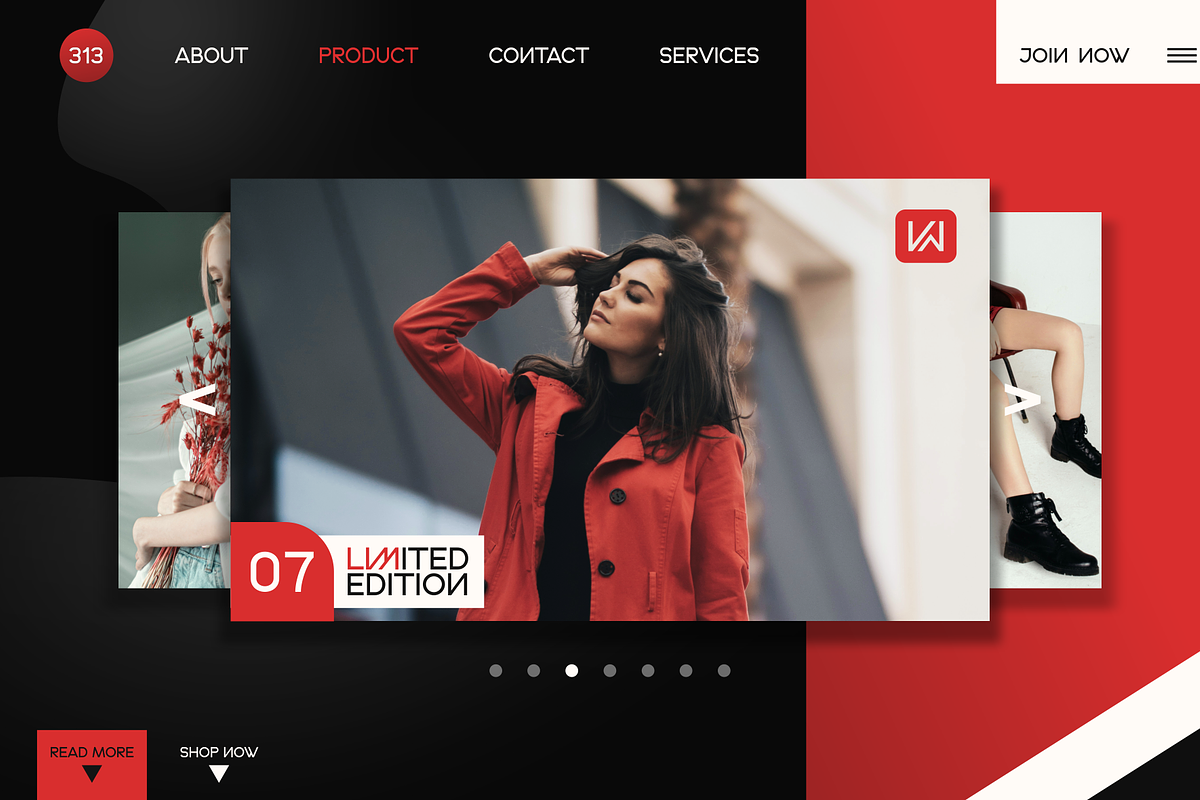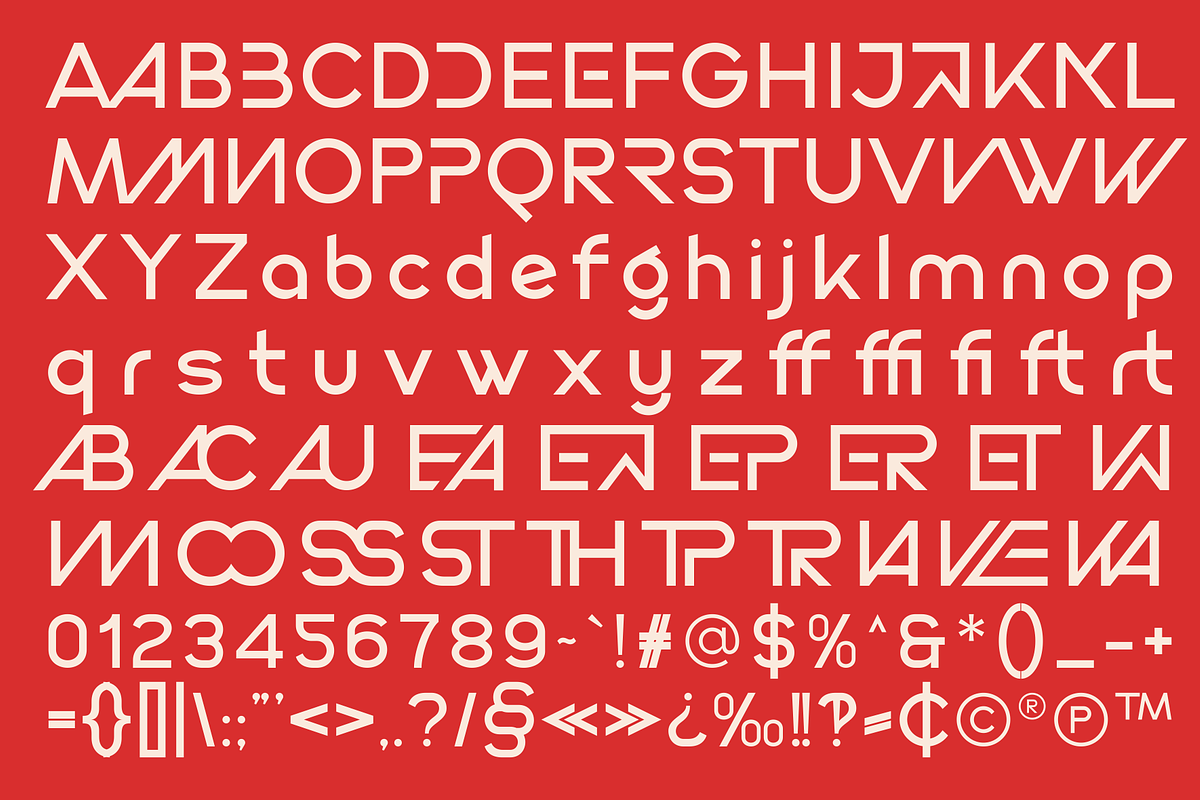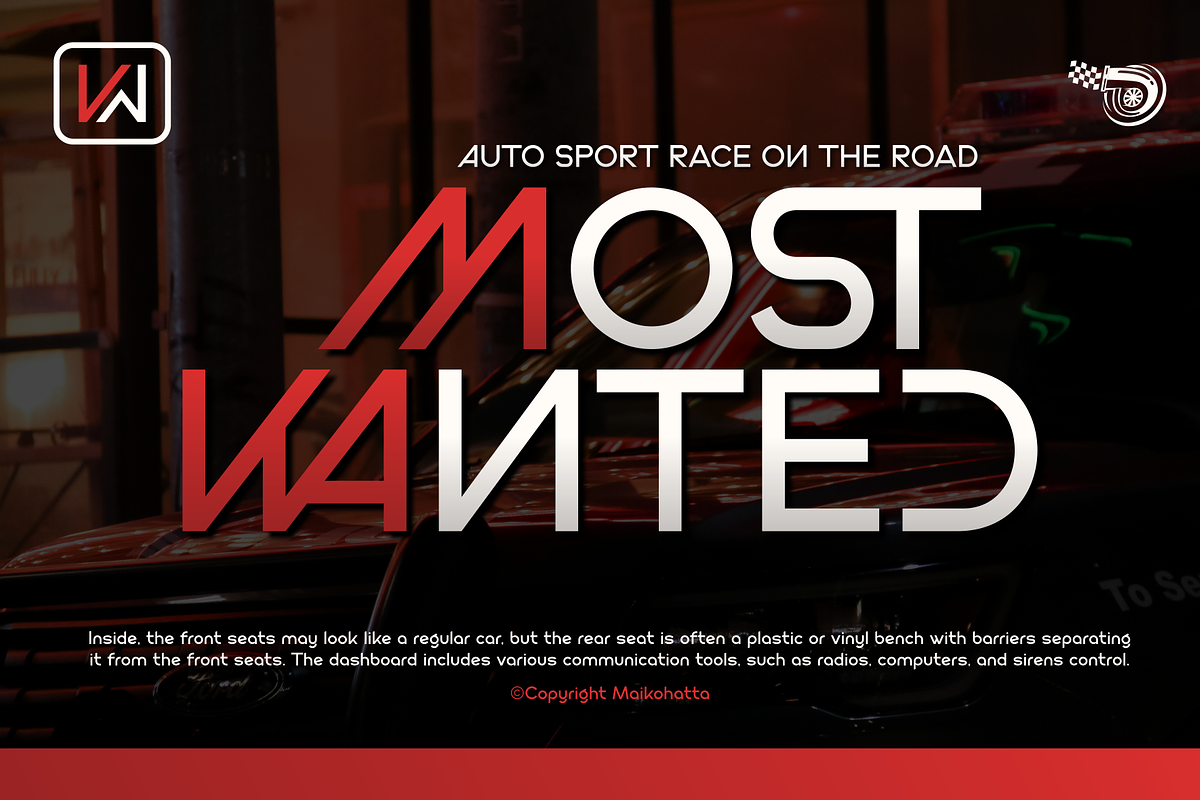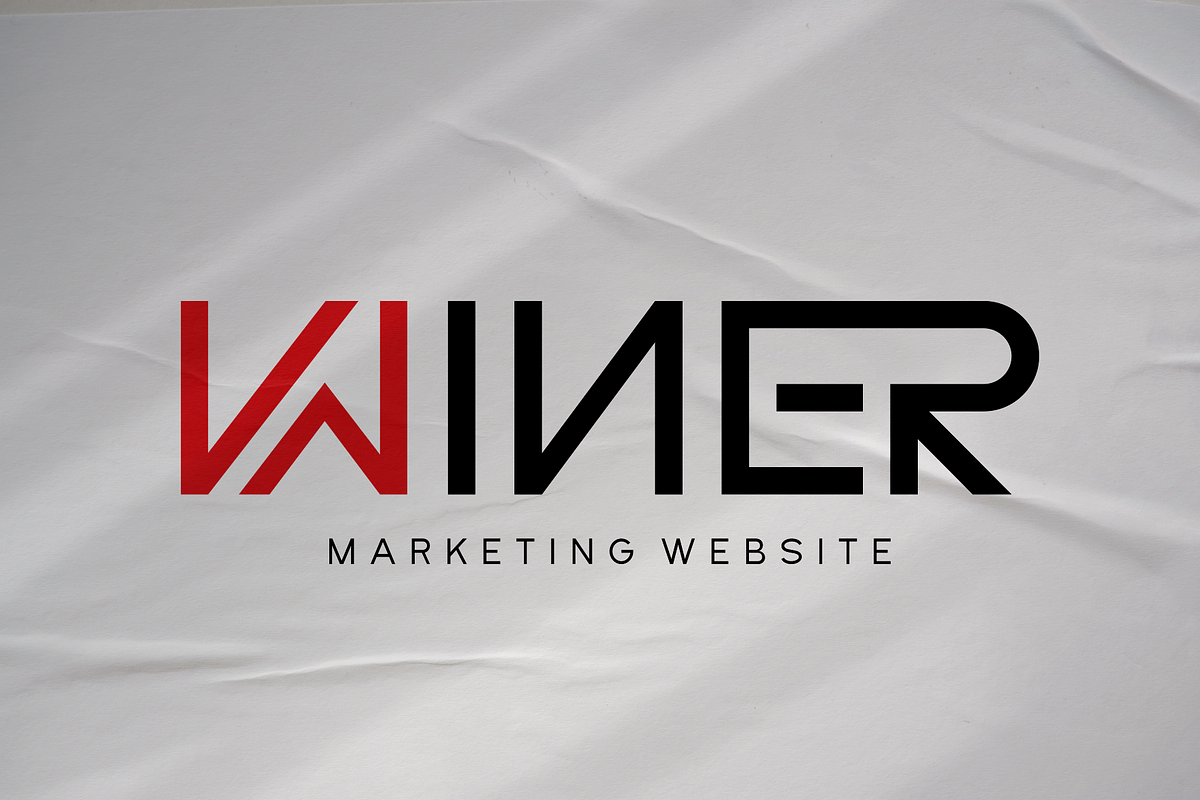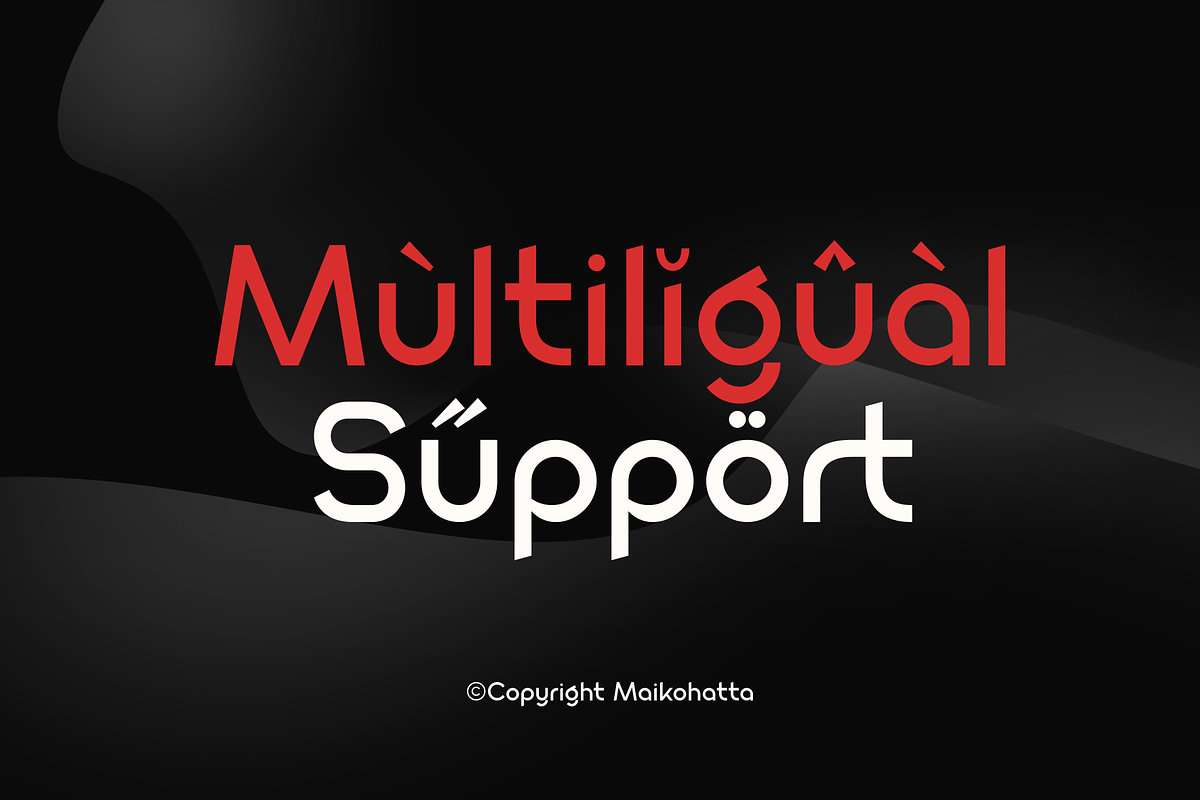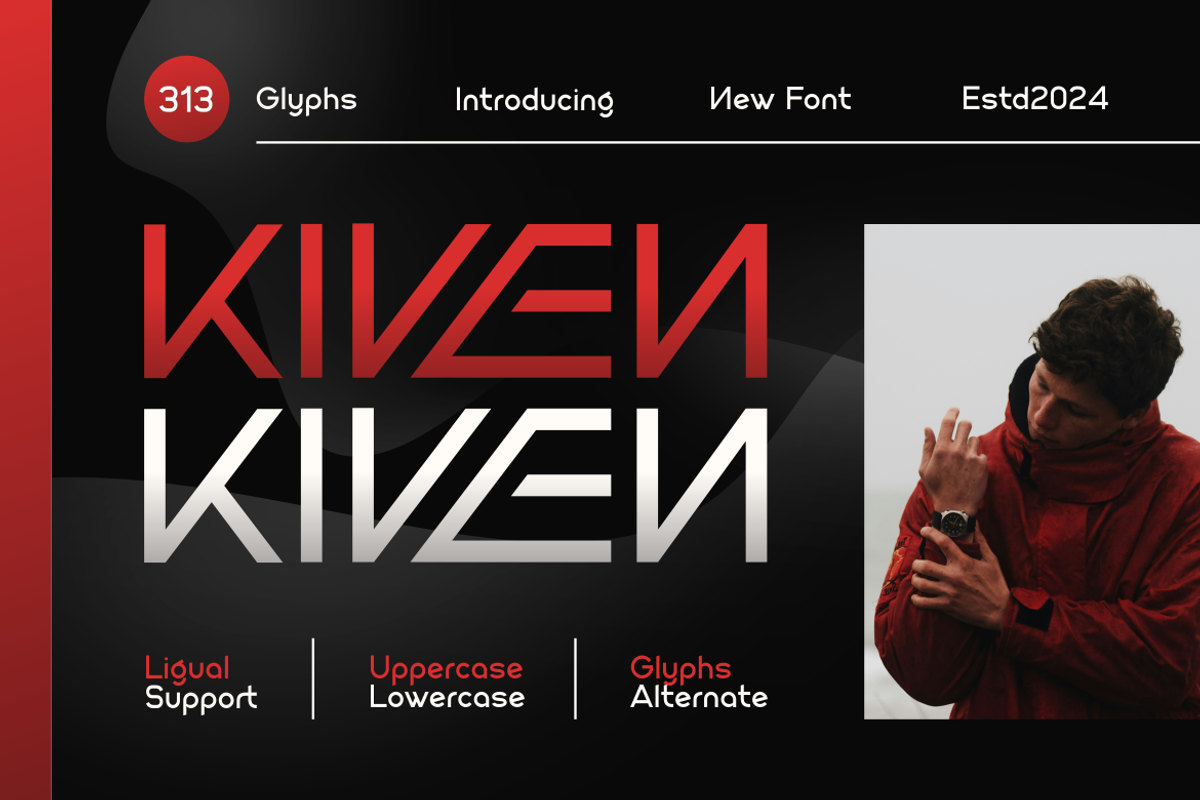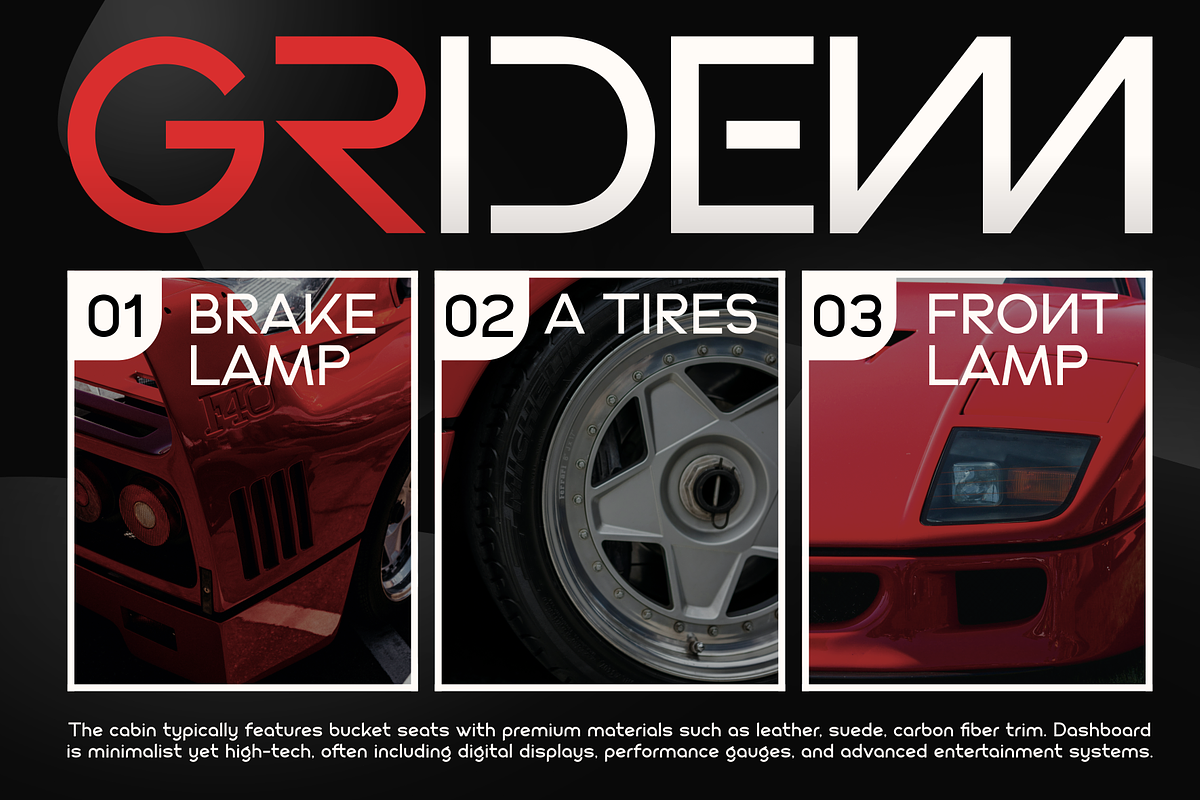
Kiven - Modern Sans Serif Display
Introducing our new product Kiven - Modern Sans Serif Display
This Font is a very flexible choice and can be used in a variety of design contexts. Its ability to provide a clean, professional, contemporary look and its simplicity and visual appeal make this font good for use in the world of graphic design and modern typography.